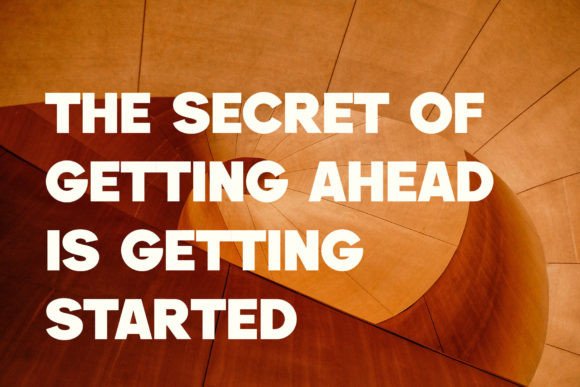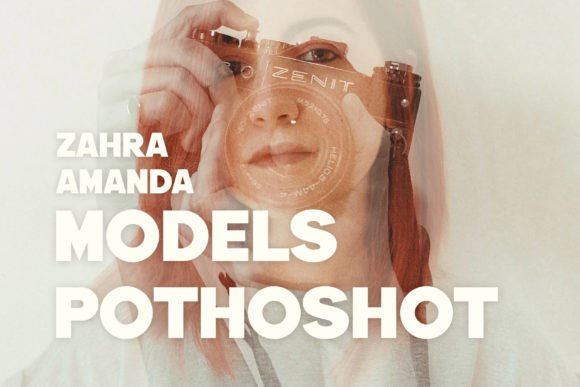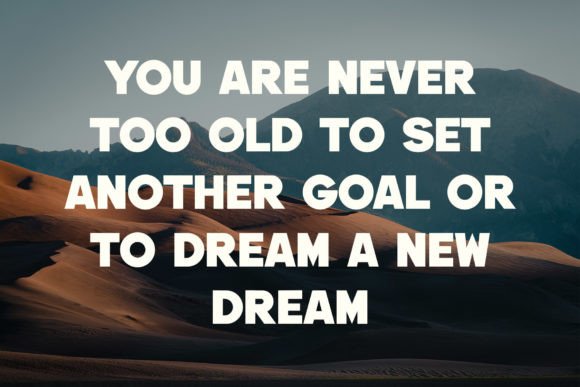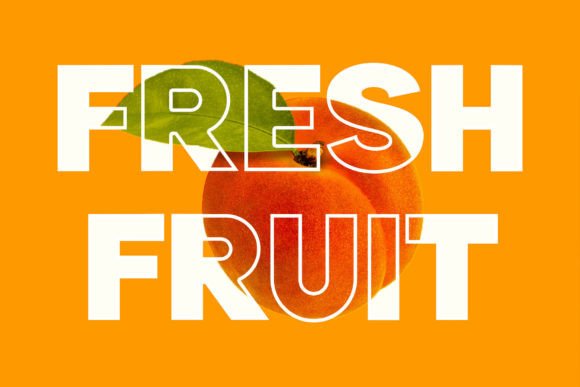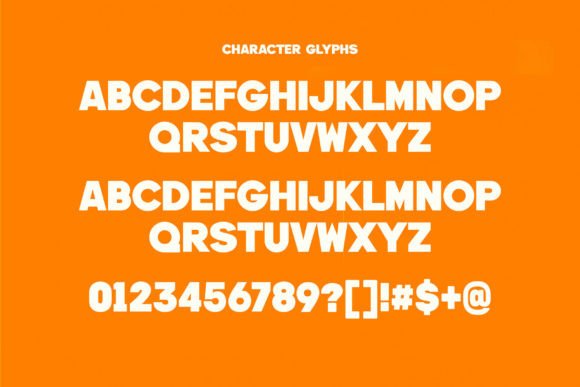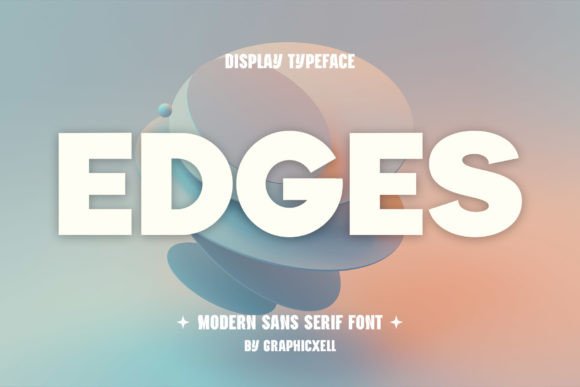
Edges Font: The Ultimate Tool for Designers and Crafters
In the world of design, fonts play a crucial role in conveying the message and aesthetic of a brand. Among the numerous fonts available, Edges Font stands out for its simplicity and versatility. Inspired by the famous minimalist logo, Edges is perfect for designing templates, brochures, videos, advertising branding, logos, invitation, layout design, elegant crafting, beauty design, and so much more.
The Birth of Edges Font
Edges Font was created with the intention of providing designers with a clean and modern font that can be used across various platforms. Its minimalist design makes it an ideal choice for those who want to convey a sense of sophistication and elegance. The font’s simplicity allows it to blend seamlessly with any design, making it a versatile tool for designers.
Key Features of Edges Font
• Clean and Modern Design: Edges Font boasts a clean and modern design that is perfect for creating visually appealing designs.
• Versatility: The font can be used for a wide range of design purposes, including templates, brochures, videos, advertising branding, logos, and more.
• Elegant and Sophisticated: Edges Font conveys a sense of elegance and sophistication, making it perfect for beauty design, elegant crafting, and other luxury brands.
• Easy to Read: The font is easy to read, even at small sizes, making it perfect for body text and captions.
Use Cases for Edges Font
Edges Font is an incredibly versatile font that can be used for a wide range of design purposes. Here are some of the most popular use cases:
• Templates: Use Edges Font to create stunning templates for presentations, reports, and other documents.
• Brochures: Create eye-catching brochures that showcase your brand’s products or services.
• Videos: Use Edges Font as a title font or for lowerings in your videos to add a touch of elegance.
• Advertising Branding: Create memorable ads that stand out with Edges Font.
• Logos: Use Edges Font to create simple yet effective logos that convey your brand’s message.
• Invitations: Create beautiful invitations for weddings, parties, and other events.
• Layout Design: Use Edges Font to create stunning layouts for magazines, newspapers, and other publications.
• Elegant Crafting: Add a touch of elegance to your crafting projects with Edges Font.
• Beauty Design: Use Edges Font to create stunning beauty designs, including makeup tutorials, product reviews, and more.
Tips for Using Edges Font
Here are some tips for getting the most out of Edges Font:
• Pair with Other Fonts: Experiment with pairing Edges Font with other fonts to create a unique and visually appealing design.
• Use Different Sizes: Use different sizes of Edges Font to create visual hierarchy and add depth to your design.
• Experiment with Colors: Try out different colors with Edges Font to create a design that matches your brand’s aesthetic.
Edges Font is a powerful tool for designers and crafters who want to create visually appealing designs. Its simplicity, versatility, and elegance make it perfect for a wide range of design purposes. Whether you’re creating templates, brochures, videos, or logos, Edges Font is an excellent choice. With its ease of use and flexibility, Edges Font is sure to become a staple in your design toolkit.